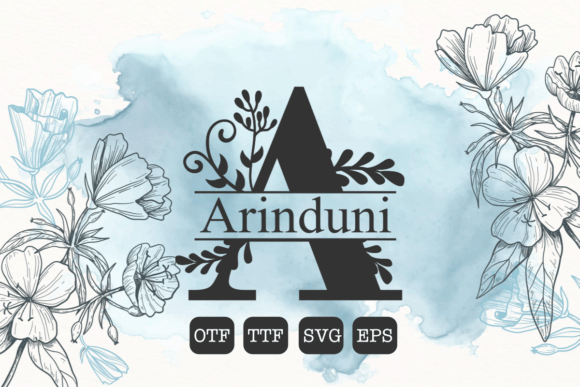
Welcome to the world of Arinduni Monogram Font, where elegance meets natural beauty! Designed by the talented Perkasya Akram, this decorative font is a must-have for anyone looking to add a touch of sophistication and personalization to their projects.
Arinduni Monogram Font is not your ordinary font – it is a work of art. Its intricate letterforms and delicate floral motifs come together to create a mesmerizing blend that will captivate your audience. Whether you're designing a logo, a website, or even a game, this font is guaranteed to elevate your design to new heights.
One of the key features that sets Arinduni Monogram Font apart is its versatility. It is the perfect choice for game design, as it adds a whimsical and enchanting element to any gaming experience. Imagine creating a game with characters and settings that are brought to life by the charming details of this font. It will truly immerse your players in a world of magic and wonder.
But Arinduni Monogram Font is not limited to just game design – it is a versatile font that can be used in a variety of projects. Its decorative nature makes it ideal for invitations, stationery, and branding materials. Whether you're planning a wedding, a corporate event, or simply want to add a touch of elegance to your correspondence, this font is the perfect choice.
Not only is Arinduni Monogram Font visually stunning, but it is also incredibly easy to use. With its clean and well-defined letterforms, you can be confident that your text will be legible and visually appealing. Say goodbye to boring and generic fonts – with Arinduni Monogram Font, your text will stand out and make a lasting impression.
Don't settle for ordinary fonts when you can have the extraordinary. Arinduni Monogram Font is the perfect choice for those who dare to be different, who want to make a statement, and who strive for perfection. Step into a world of elegance and natural beauty – download Arinduni Monogram Font now and let your imagination run wild.